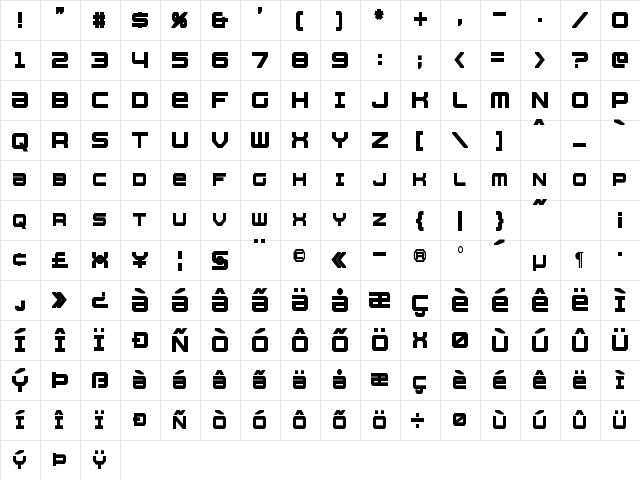
Whittle Condensed Bold
Foundry: Pixel Sagas
Designer: Neale Davidson
Design Context for Whittle Condensed
Whittle Condensed is a composed and adaptable typeface that performs quietly and consistently across a wide range of design contexts. Its bold stroke weight gives it real presence on the page. Its narrow stance lets it pack a punch even in space-constrained designs.